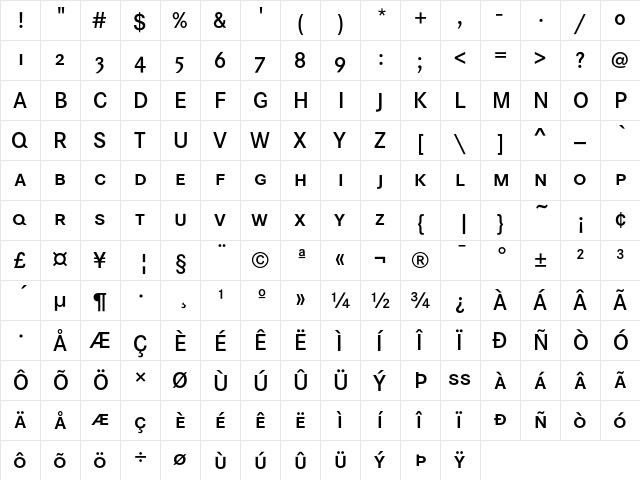
CorporateSSC Demi
Design Context for CorporateSSC Typeface
CorporateSSC offers clean, dependable letterforms without strong stylistic allegiance, making it a practical choice for designers who need flexibility.
Pro Tip: Pair CorporateSSC with a font of contrasting weight or personality to build a more expressive typographic hierarchy.